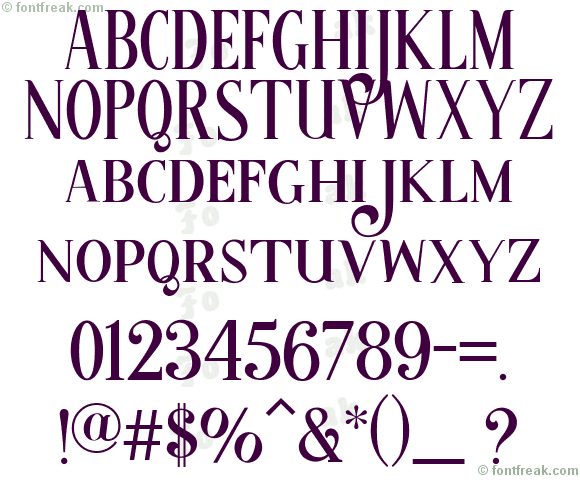
Magic Sparkle
The Magic Sparkle font, designed by Burhan Afif, is a captivating decorative typeface that captures the essence of whimsy and charm. Released in 2019, this freeware font features a unique blend of playful elegance, making it an ideal choice for a variety of creative projects. Characterized by its bold, eye-catching strokes and a moderate contrast between thick and thin lines, Magic Sparkle exudes a sense of enchantment. The letterforms are spaciously arranged, allowing for effortless readability while maintaining a delightful flair.
This font shines in several specific use cases. It is particularly well-suited for wedding invitations, where its whimsical style can beautifully convey romance and celebration. Additionally, it makes an excellent choice for movie posters, effectively capturing attention and hinting at the magic within. Restaurant menus can also benefit from its inviting aesthetic, enticing diners with a touch of sparkle. Furthermore, content creators looking to enhance their social media graphics will find Magic Sparkle an engaging option that stands out in crowded feeds.
Targeting graphic designers, small business owners, and content creators, Magic Sparkle is a versatile font that appeals to those seeking to add a touch of creativity to their projects. Its distinct style allows users to express their unique brand identity while remaining approachable and fun.
What sets the Magic Sparkle font apart is its ability to transform ordinary text into extraordinary visual statements. With its enchanting design, it captures the imagination, making it a valuable addition to any designer's toolkit. For those interested in incorporating this charming typeface into their work, the Magic Sparkle font free download offers an accessible way to enhance creativity and bring projects to life.